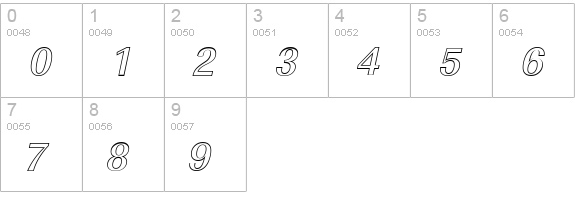
ImperialOu-Medium-Italic is a balanced, medium-weight, italic variant in the ImperialOu typeface family \xE2\x80\x94 well suited to sub-headlines, navigation, and balanced editorial work.
ImperialOu Medium Italic font exudes sophistication and elegance with its sleek design and distinctive italic style. This versatile typeface is perfect for adding a touch of refinement to any project, whether it be for print or digital use. The flowing curves and precise angles of ImperialOu Medium Italic make it a standout choice for headings, titles, and other display purposes. And the best part? ImperialOu Medium Italic is available for free download at FontsMarket.com. Now you can elevate your designs with this premium font without breaking the bank. Don't miss out on the opportunity to add ImperialOu Medium Italic to your font collection today!